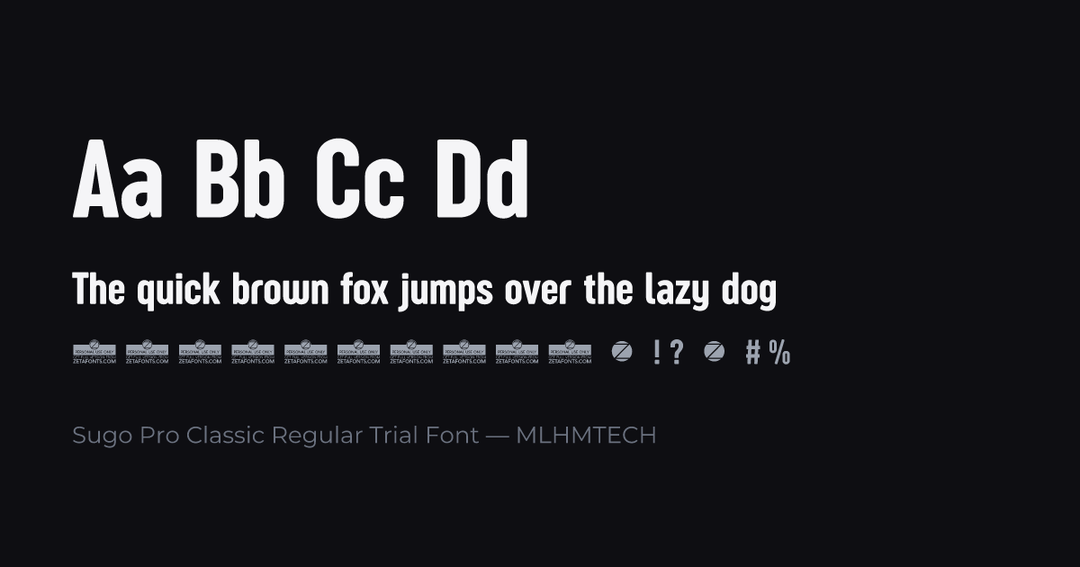
Sugo Pro Classic Regular Trial Font
Sugo Pro Classic Regular is a bold, clean sans-serif font ideal for titles, logos, and video graphics. This trial version lets you test its impact.
Sugo Pro Classic Regular is a geometric sans-serif typeface with a strong, confident presence. Its clean lines and uniform stroke widths make it highly legible even at small sizes, while its bold weight adds impact to headlines and titles. The trial version includes the regular weight, allowing you to evaluate its style for your projects.
This font is perfect for video editors and designers looking to add a modern, professional touch to their work. Use it for title sequences, lower thirds, logo animations, or any graphic element that needs to stand out. Its versatility makes it suitable for a wide range of creative projects, from corporate videos to social media content.